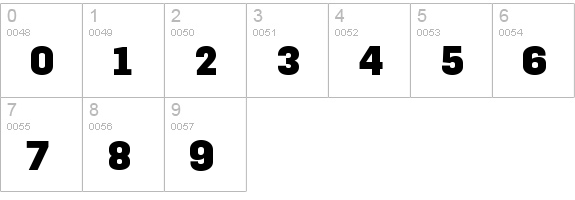
FlamaBlack Font Details
Introducing FlamaBlack font, a bold and dynamic typeface that exudes strength and modernity. With its sleek and sharp design, FlamaBlack is perfect for making a bold statement in your projects. Its high contrast and distinctive letterforms ensure that your text will stand out and capture attention effortlessly. What sets FlamaBlack apart is that it is not only visually striking but also versatile, making it suitable for a wide range of design applications. Whether you're working on a branding project, editorial design, or advertising campaign, FlamaBlack will bring a touch of sophistication and elegance to your work. And the best part? FlamaBlack is available for free download at FontsMarket.com. Yes, you read that right - you can get your hands on this stunning font without spending a dime. So why wait? Elevate your designs with FlamaBlack today and make a lasting impression with its bold and captivating style.